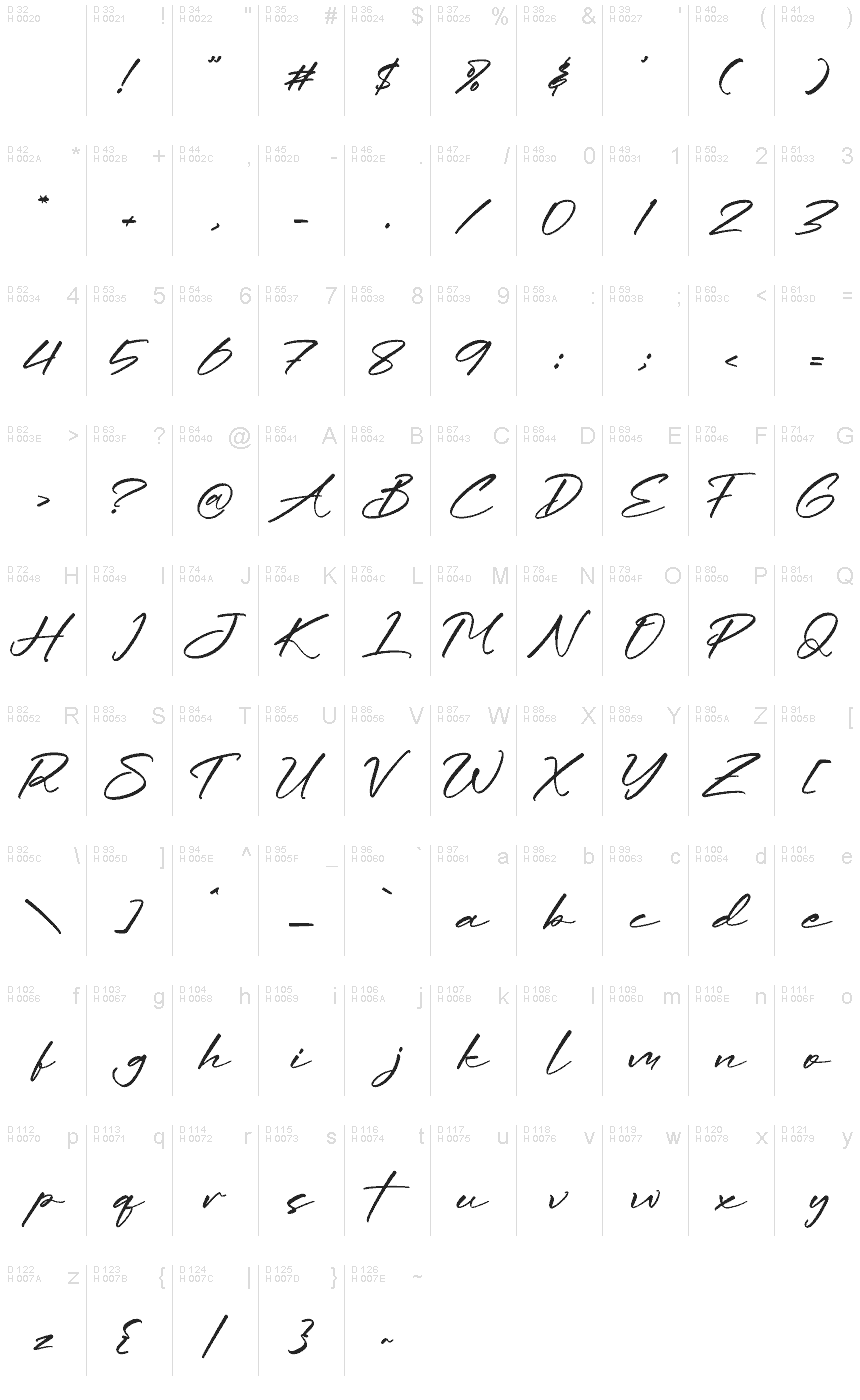
Realista Thiffany
Realista Thiffany font by Letterena Studios is a sophisticated yet expressive handwritten typeface that exudes elegance and personal touch. The letters are flowing, modern, and carrying a hint of artistry that can transform a simple design into something special.
This free script font is perfect for wedding invitations, branding projects, book covers, apparel designs, magazines or newspapers headlines. Use it in quotes within social media posts or alongside posters and flyers for events. Use it to your advantage in videos either as titles or within the frames themselves.